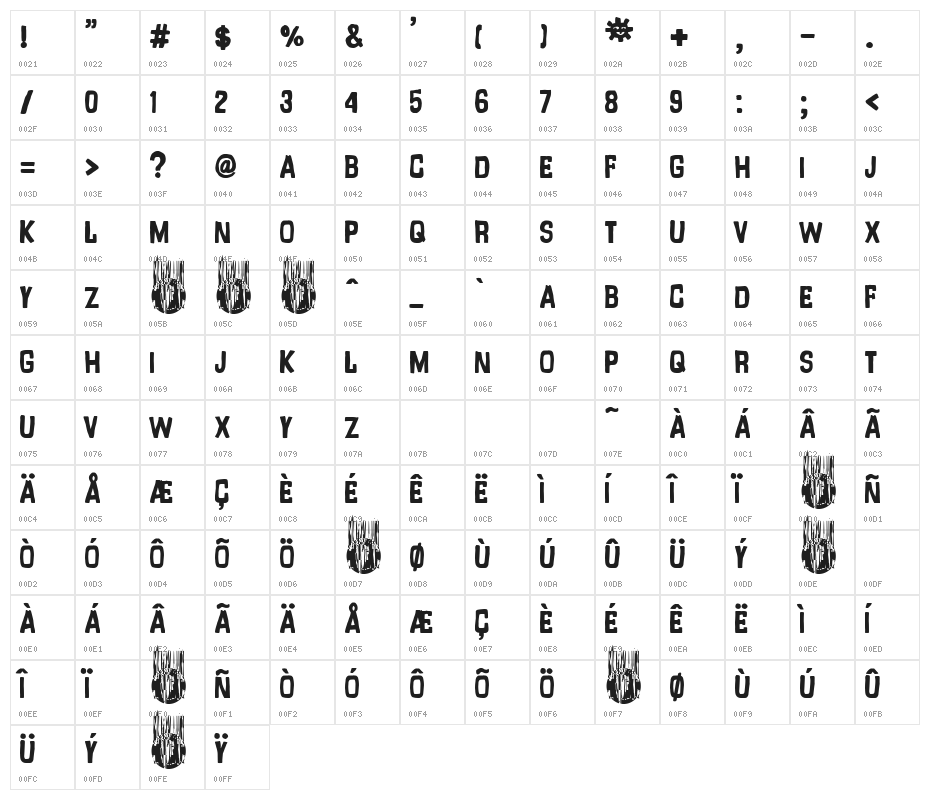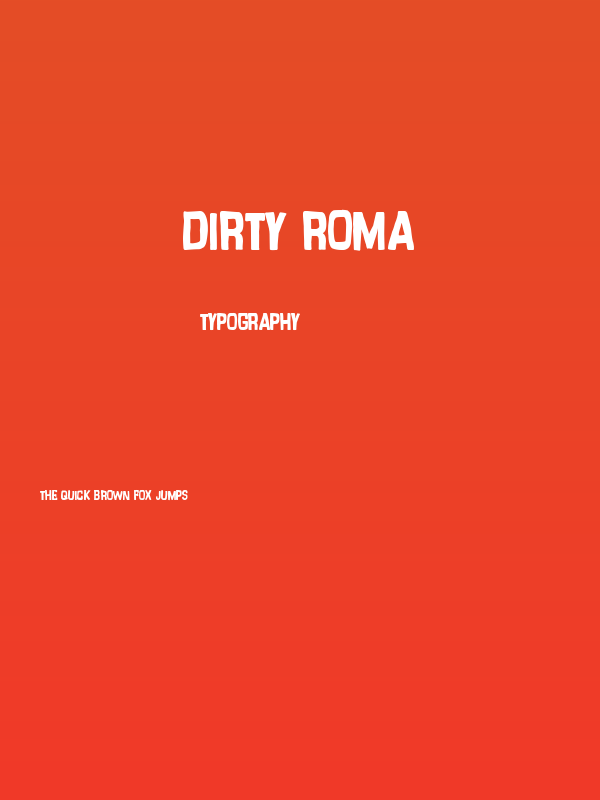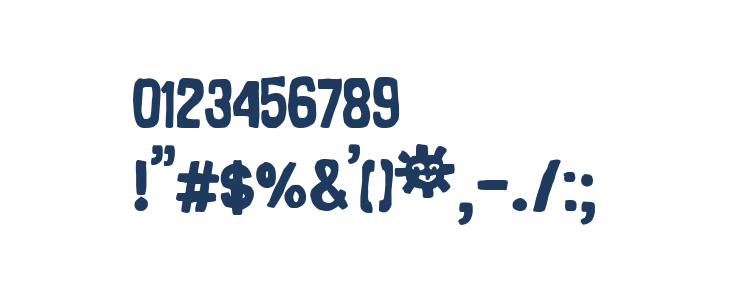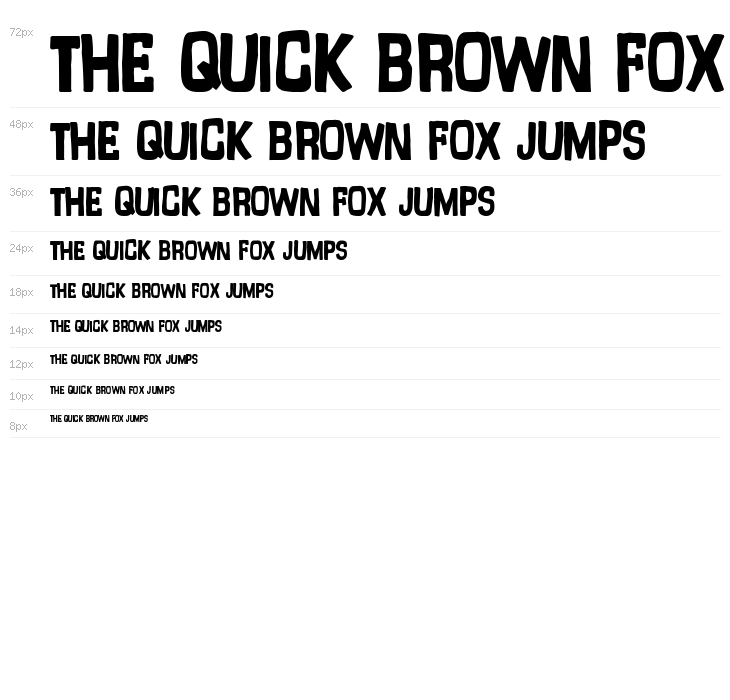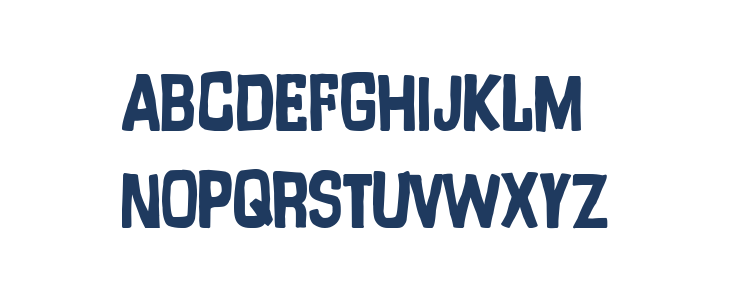
Dirty Roma Font
Dirty Roma Description
This font features a bold and expressive style with a hand-drawn appearance. The characters are slightly irregular, giving it a playful and informal look. The strokes are thick and consistent, creating a strong visual impact. The uppercase and lowercase letters maintain a cohesive design, with rounded edges and a slightly condensed form. The numbers and special characters follow the same aesthetic, ensuring uniformity across all elements. This font is ideal for projects that require a casual and dynamic feel, such as posters, flyers, and creative branding.